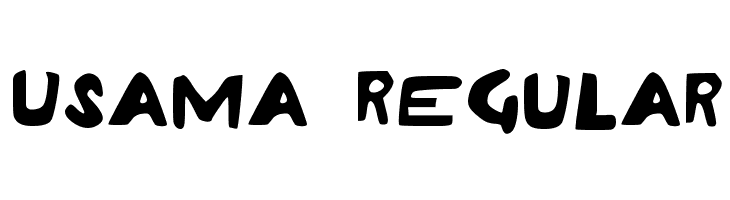
A bold, playful handwritten font with thick, rounded characters.
A playful, hand-drawn font with bold, rounded characters and a whimsical style.
A bold, playful font with thick, rounded strokes and a whimsical style.
A bold, playful handwritten font with thick, rounded strokes.